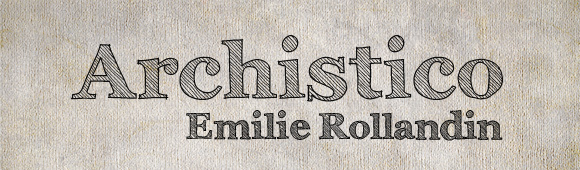
Archistico Bold by Archistico and Emilie Rollandin is a free eroded techno display font with broad, weighty forms and old-style serifs. Dense diagonal hatching makes every letter resemble an architectural sketch.
It can turn a poster title or game logo into a rough technical drawing, with structure that feels engineered rather than casual. The same crosshatched texture also suits album covers, workshop branding, and packaging built around diagrams, blueprints, or hand-rendered machinery.